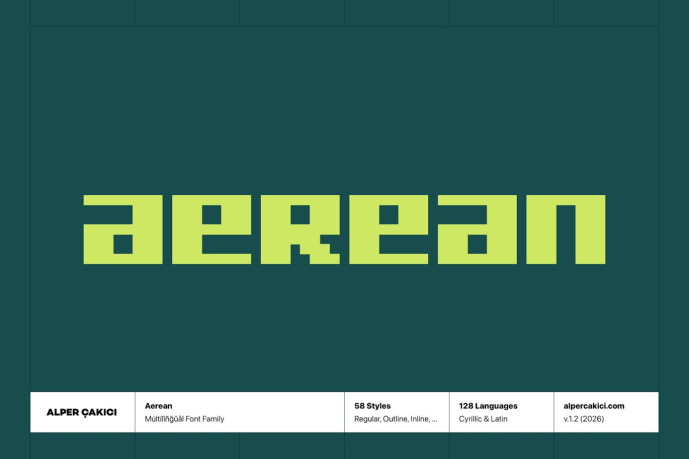
Aerean – Modern Typeface Family
Designer: Alper Çakıcı
Aerean is a modern block-based display typeface built on a sharp, angular structure with a pixel-influenced construction. Instead of imitating retro 8-bit typography, Aerean transforms grid logic into a contemporary design system, producing letterforms that feel architectural, technical, and expressive at the same time.
The design combines geometric precision with stylistic versatility. Its core structure is rigid and modular, yet the family expands into multiple expressive styles—from clean outlines and inline variants to textured brush, eroded, rough, and pencil interpretations. This allows designers to move seamlessly from minimal, futuristic typography to organic, distressed visual tones while maintaining the same underlying letterform identity.
Aerean is built as a large stylistic system rather than a single font. The family includes Angular, Circular, and Rounded constructions, each offering its own visual personality. Angular styles emphasize sharp geometry and structural clarity. Circular styles soften the construction with curved modulation, creating a more modern and fluid appearance. Rounded styles introduce warmth and friendliness while preserving the distinctive block framework. Within each construction, numerous stylistic textures expand the creative range: Outline, Inline, Rimmed, Rough, Eroded, Noise, Pencil, and Brush variations allow designers to quickly shift between polished display typography and expressive, handcrafted aesthetics.
Supports extended Latin and Cyrillic character sets.